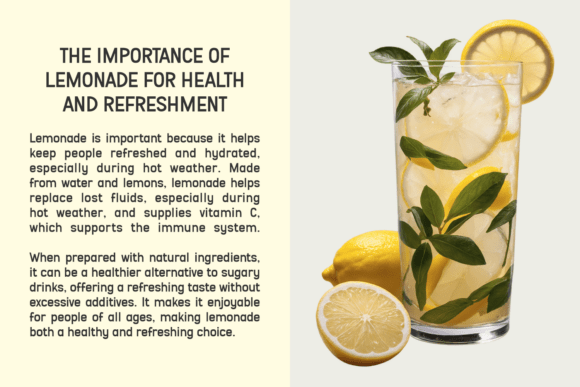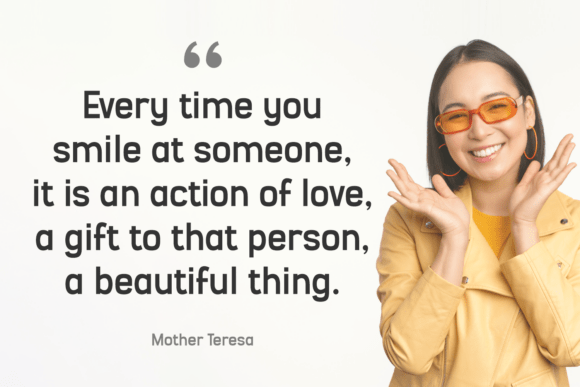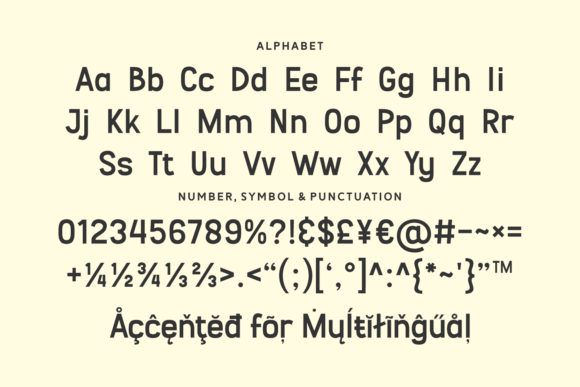
Introducing Complete Lemonade Font: The Ultimate Sans-Serif for Modern Design
In the world of typography, few fonts manage to capture the essence of modern minimalism while exuding elegance and sophistication. Complete Lemonade Font is one such typeface that has been making waves in the design community for its refreshing take on sans-serif fonts. This article will delve into the features, benefits, and uses of Complete Lemonade Font, making it a must-read for designers, crafters, and anyone looking to elevate their design game.
A Perfect Balance of Clean Geometry and Airy Feel
Complete Lemonade Font is designed to strike a perfect balance between clean geometry and a welcoming, airy feel. Its elegant sans-serif design makes it an ideal choice for creators who need a font that can seamlessly transition from bold, high-impact headlines to professional, high-legibility subtext. The font’s tall x-height and balanced proportions give it a crisp, citrus-fresh aesthetic that feels both contemporary and timelessly professional.
One of the standout features of Complete Lemonade Font is its versatility. This typeface is an essential tool for lifestyle branding, high-end editorial layouts, and digital marketing. It pairs beautifully with delicate script fonts to create a high-contrast, modern-luxury look, or can stand alone for a bold, minimalist statement. Whether you’re designing magazine spreads, boutique packaging, or clean website headers, Complete Lemonade Font is the perfect choice.
Key Features of Complete Lemonade Font
- Elegant Sans-Serif Design: Complete Lemonade Font boasts a clean and sophisticated sans-serif design that exudes elegance and modernity.
- Tall X-Height: The font’s tall x-height provides excellent legibility, making it perfect for body text and subtext.
- Balanced Proportions: The font’s balanced proportions give it a crisp, citrus-fresh aesthetic that feels both contemporary and timelessly professional.
- High-Impact Headlines: Complete Lemonade Font can be used to create bold, high-impact headlines that grab attention.
- Multi-Platform Compatibility: The font is compatible with various platforms, including print, digital, and web.
Design Applications of Complete Lemonade Font
Complete Lemonade Font is an incredibly versatile typeface that can be used in a wide range of design applications. Some of the most popular uses include:
- Lifestyle Branding: The font’s elegant design makes it perfect for lifestyle branding, including logos, packaging, and marketing materials.
- High-End Editorial Layouts: Complete Lemonade Font is ideal for high-end editorial layouts, including magazine spreads, newspapers, and books.
- Digital Marketing: The font’s clean design and excellent legibility make it perfect for digital marketing materials, including website headers, social media graphics, and email marketing campaigns.
- Boutique Packaging: Complete Lemonade Font can be used to create beautiful boutique packaging that stands out on store shelves.
Tips for Using Complete Lemonade Font
To get the most out of Complete Lemonade Font, here are some tips to keep in mind:
- Pair with Script Fonts: Pair Complete Lemonade Font with delicate script fonts to create a high-contrast, modern-luxury look.
- Use for Headlines and Subtext: Use the font for both headlines and subtext to create a cohesive and professional look.
- Experiment with Colors: Experiment with different colors to find the perfect combination that complements your brand or design.
| Font Name | Complete Lemonade Font |
| Author | Eightde |
Complete Lemonade Font is a refreshing and sophisticated take on modern minimalism, making it an essential tool for designers and crafters. Its elegant sans-serif design, tall x-height, and balanced proportions make it perfect for a wide range of design applications. Whether you’re looking to create bold, high-impact headlines or professional, high-legibility subtext, Complete Lemonade Font is the perfect choice. With its versatility and multi-platform compatibility, this font is sure to become a staple in your design toolkit.